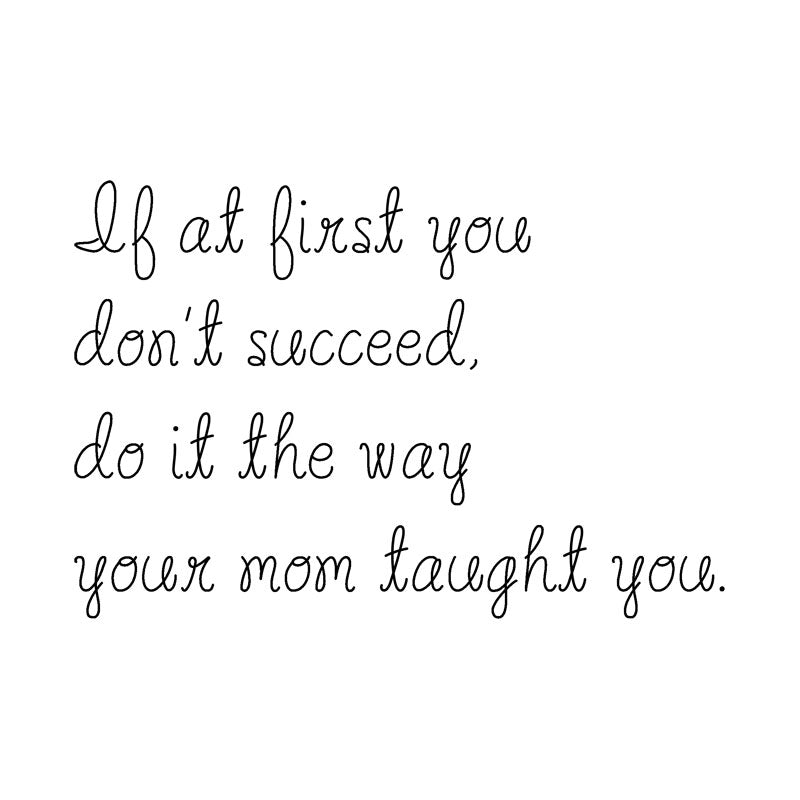
SLF Apple Crisp – Casual Single Line Script for Foil Quill & Engraving
SLF Apple Crisp is a casual single line script font with understated charm—perfect for signs, cards, Foil Quill projects, engraving, embossing, and sketch pen designs. It includes alternate language characters (see the character map image) for broader language support.
• Cardmaking, journaling, and playful script projects
• Foil Quill and pen-tool lettering
• Pen plotters and craft lettering